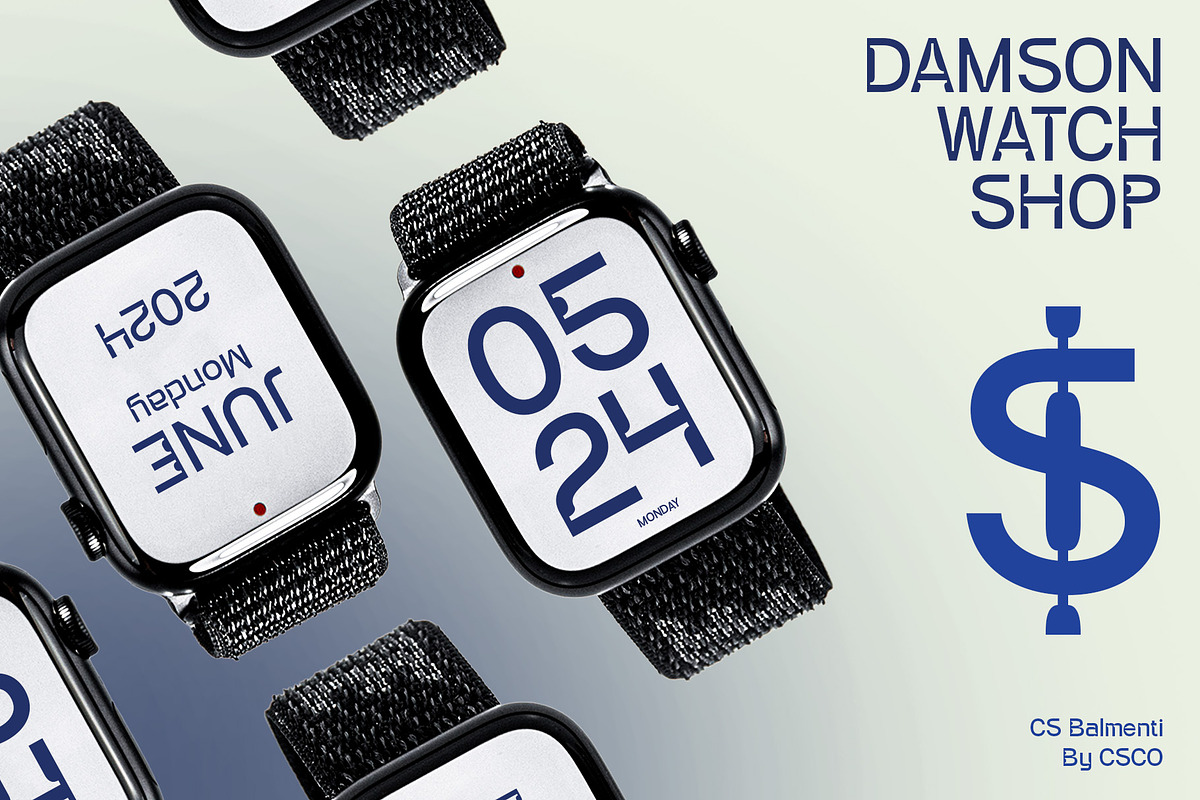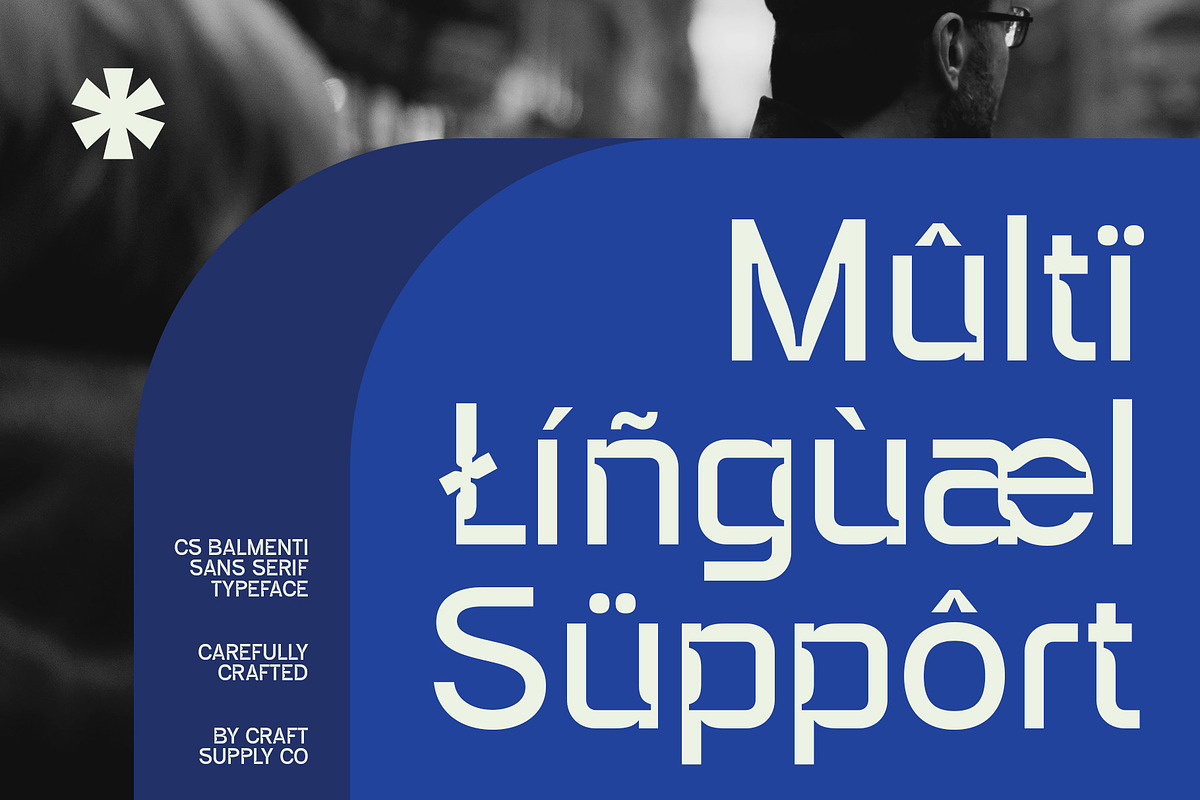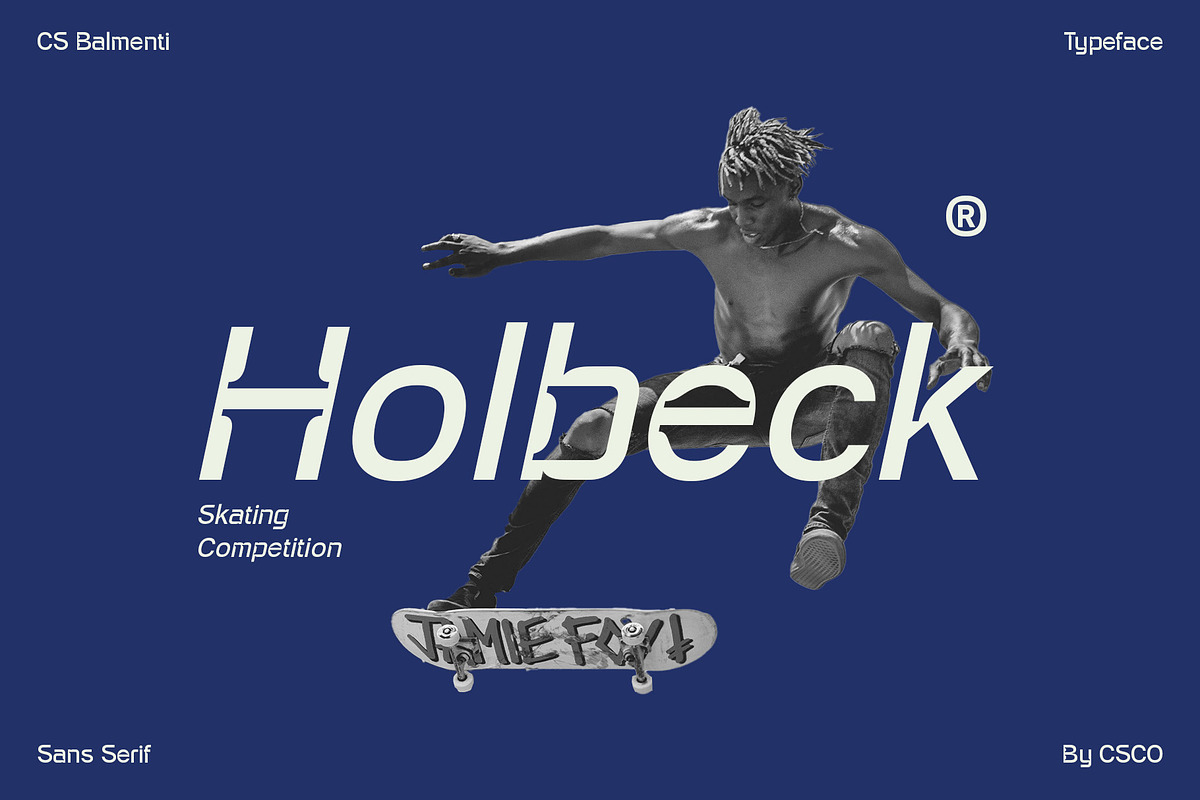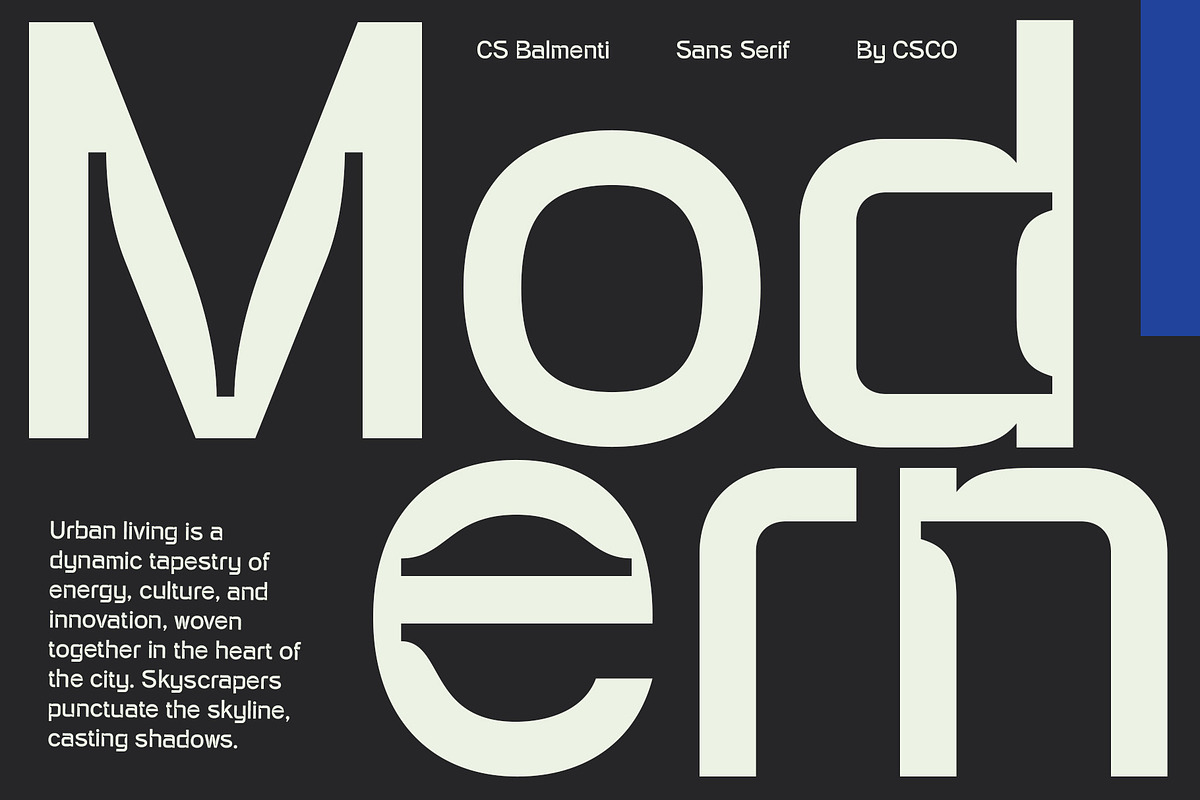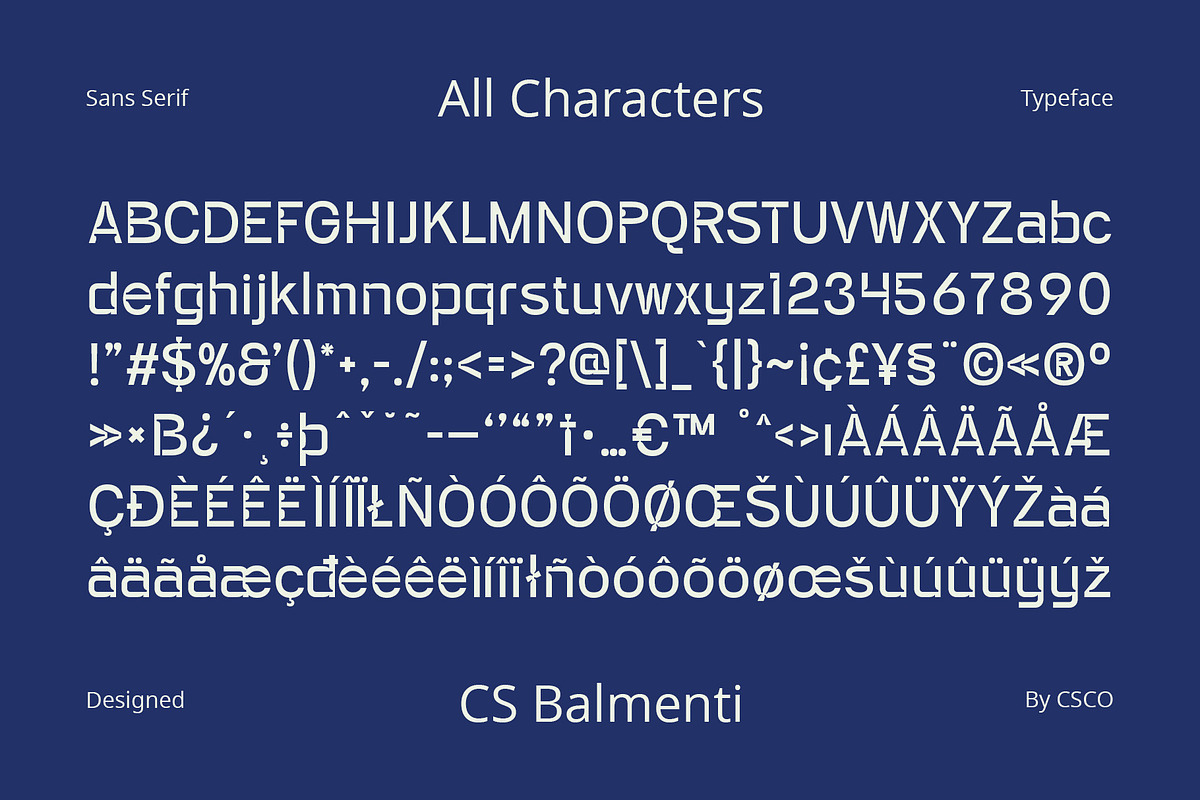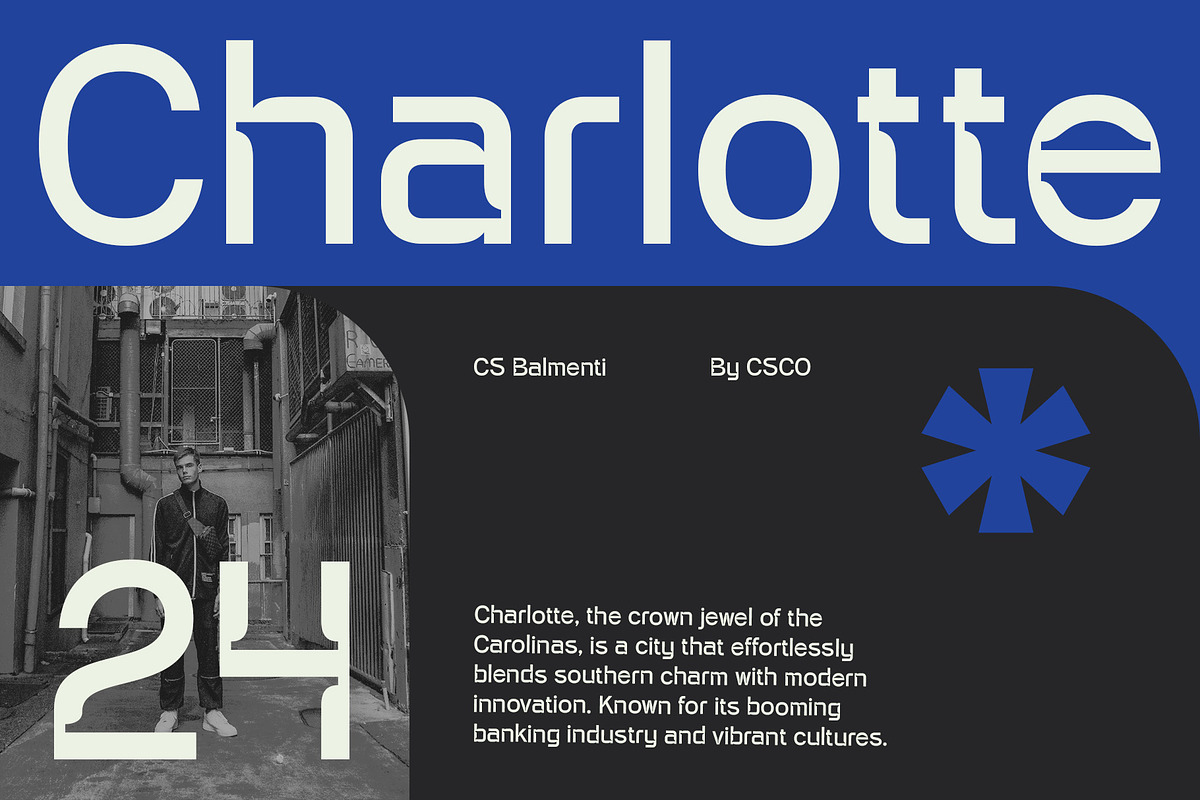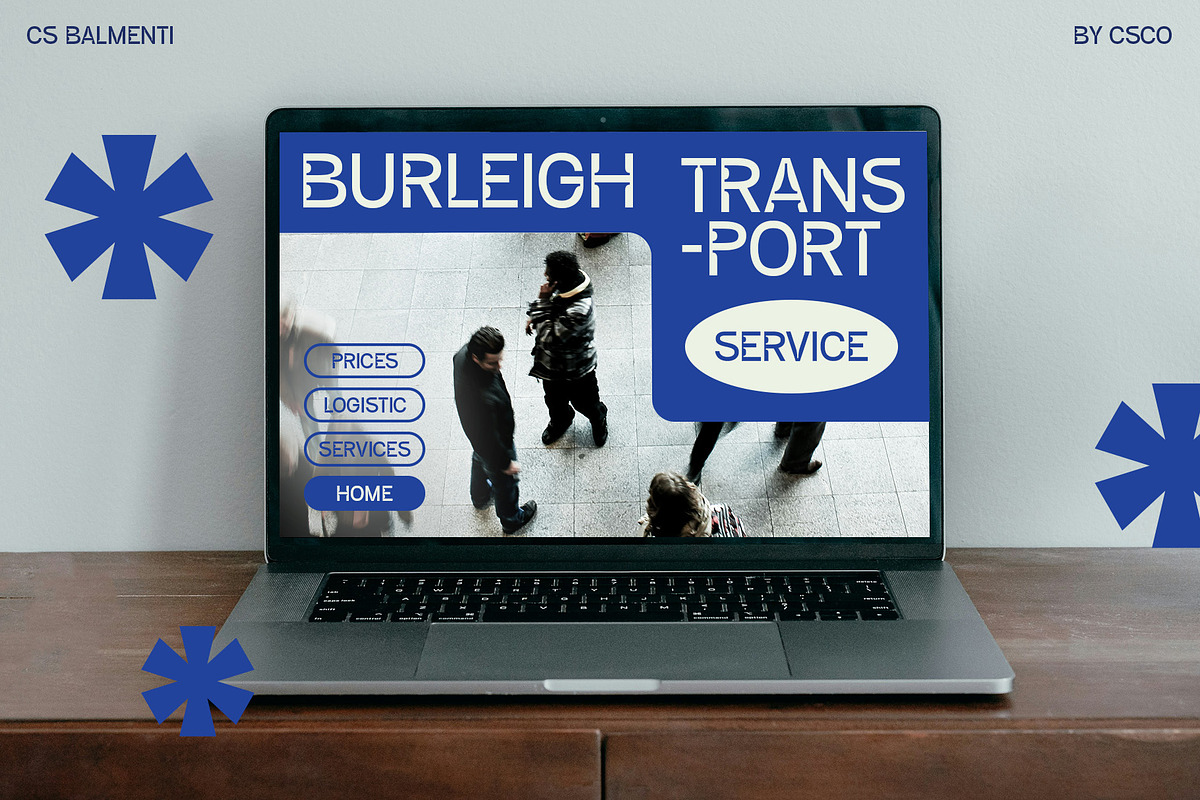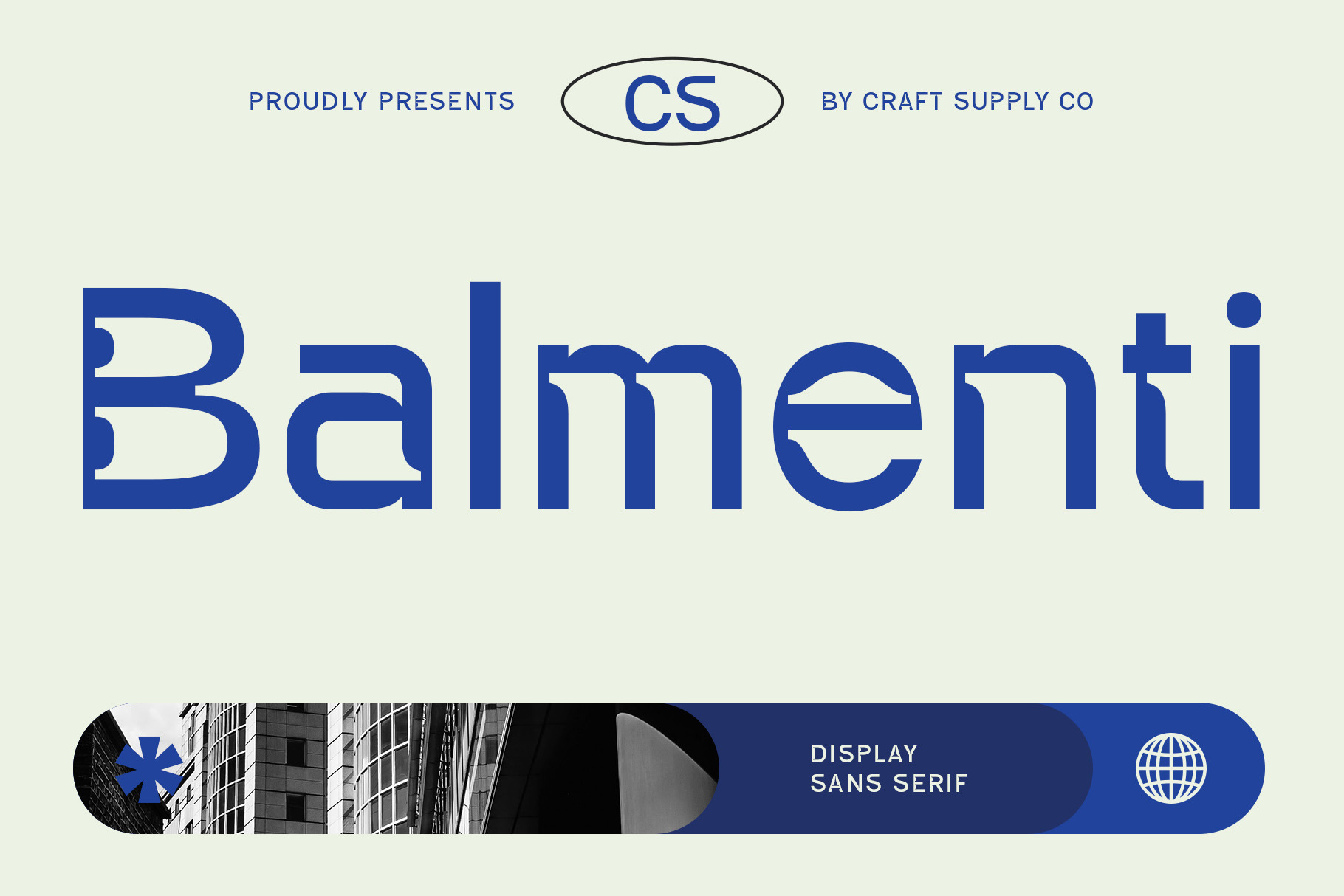
CS Balmenti– Display Sans Serif Font
CS Balmenti – Display Sans Serif Font: Bold and Clean for a Contemporary Industrial Look
Modern Sans Serif Design with Sharp, Clean Lines
CS Balmenti is a display sans serif font that features a bold and modern design with sharp, clean lines. Its minimalist aesthetic ensures a strong and contemporary appearance, making it ideal for various design projects.
Perfect for Industrial Designs
With its clean and industrial look, CS Balmenti is perfect for designs requiring a strong and contemporary touch. The bold lines and modern styling offer an authoritative presence, suitable for branding, signage, and other industrial-themed designs.
Strong and Contemporary Appearance
Designed for projects aiming to convey a powerful and modern impression, CS Balmenti excels in digital interfaces, print materials, and promotional graphics. Its combination of boldness and clarity ensures your message stands out with impact.
Versatile Application
Despite its industrial focus, CS Balmenti is versatile across a wide range of design applications. Whether used in web design, corporate branding, or editorial layouts, this font maintains readability and sharpness while delivering a contemporary look.
Conclusion
In conclusion, CS Balmenti is a display sans serif font that blends boldness and modernity. With its sharp, clean lines and industrial aesthetic, this font enhances any design project with a strong and contemporary presence.